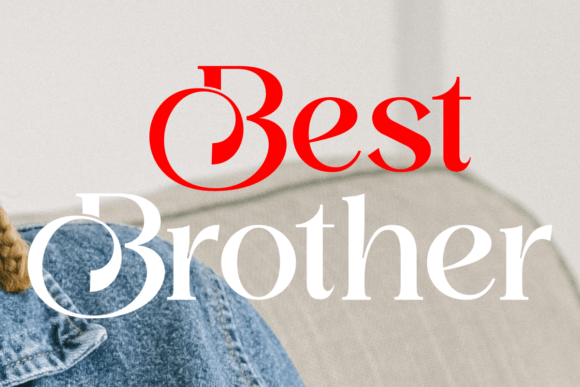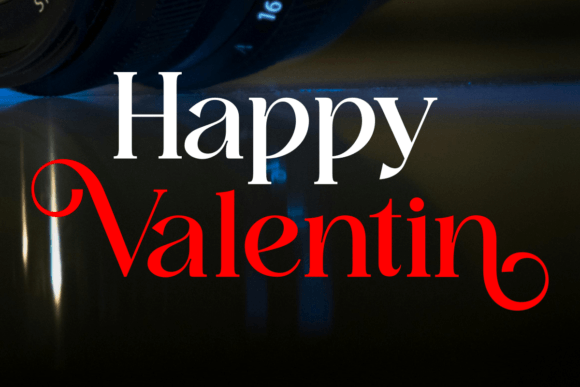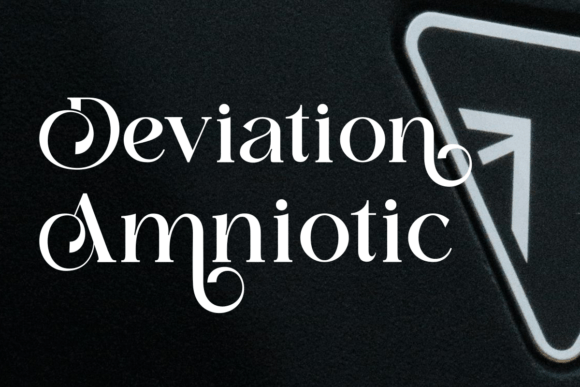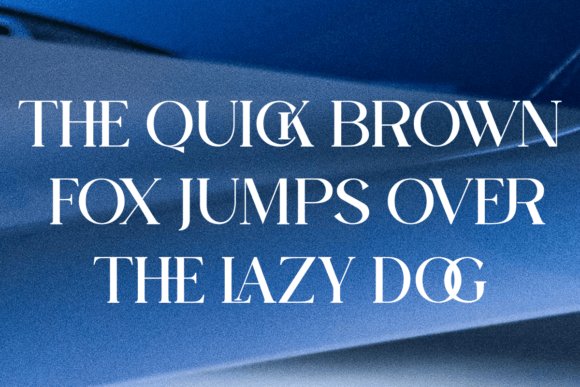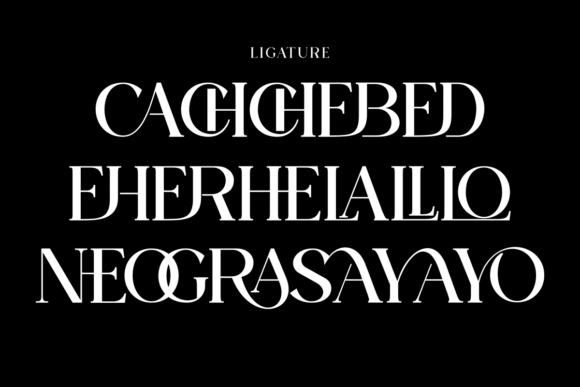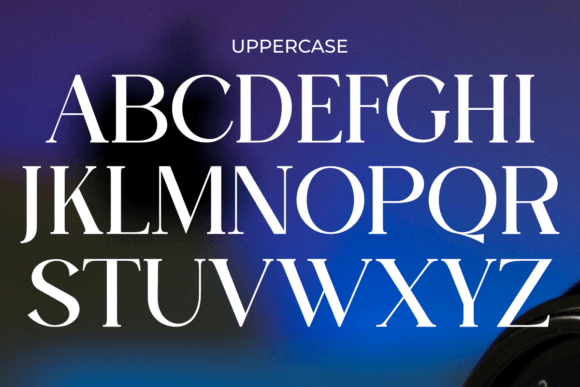
Introducing Domilla Font: Elevate Your Designs with Opulence and Sophistication
In the world of typography, a font can make or break a design. It can elevate a project from ordinary to extraordinary, conveying the tone and personality of a brand or message. For designers and crafters seeking to create a lasting impression, Domilla Font is an exclusive, top-tier serif font that embodies the essence of opulence, sophistication, and expertness.
The Art of Elegance: Domilla’s Design Philosophy
Domilla Font is crafted with meticulous attention to detail, boasting a balanced and versatile design that exudes richness and credibility. The font’s serif elegance is perfect for projects that demand a high level of professionalism, such as luxury branding, high-end magazines, and corporate communications. With its refined lines and classic proportions, Domilla brings visual harmony and dignity to the forefront, making it an ideal choice for designers seeking to create a lasting impression.
Two Stylish Variations: Regular and Oblique
Domilla Font offers two stylish variations: Regular and Oblique. The Regular style showcases the font’s classic serif elegance, while the Oblique style adds a touch of dynamism and sophistication. Both styles work in harmony to create a cohesive visual identity, allowing designers to experiment with different typographic combinations. Whether you’re designing a logo, brochure, or website, Domilla’s versatile styles ensure that your project will stand out from the crowd.
Unparalleled Versatility: Domilla’s Range of Applications
Domilla Font is an incredibly versatile typeface, suitable for a wide range of design applications. From luxury branding and advertising to packaging and editorial design, Domilla’s elegant serif design adapts seamlessly to various contexts. Its legibility and readability make it an excellent choice for body text, while its stylish flair ensures that headlines and titles will grab attention.
Why Choose Domilla Font?
- Opulence and Sophistication: Domilla’s design embodies the essence of luxury and refinement, perfect for high-end projects.
- Balanced and Versatile: The font’s balanced design ensures that it works well in various contexts, from body text to headlines.
- Expertness and Credibility: Domilla’s classic serif design conveys a sense of professionalism and expertise.
- Two Stylish Variations: The Regular and Oblique styles offer flexibility and creativity in typographic design.
Tips for Using Domilla Font Effectively
To get the most out of Domilla Font, consider the following tips:
- Pair with contrasting fonts: Combine Domilla with sans-serif fonts or script fonts to create visual interest.
- Experiment with typographic hierarchy: Use Domilla’s Regular and Oblique styles to create a clear typographic hierarchy.
- Pay attention to line spacing: Ensure that line spacing is consistent to maintain readability.
Domilla Font is an exceptional serif font that brings opulence, sophistication, and expertness to any design project. Its elegant design, versatility, and range of applications make it an ideal choice for designers and crafters seeking to create a lasting impression. With Domilla, you’ll be able to elevate your designs, convey a sense of professionalism, and leave a lasting impact on your audience.